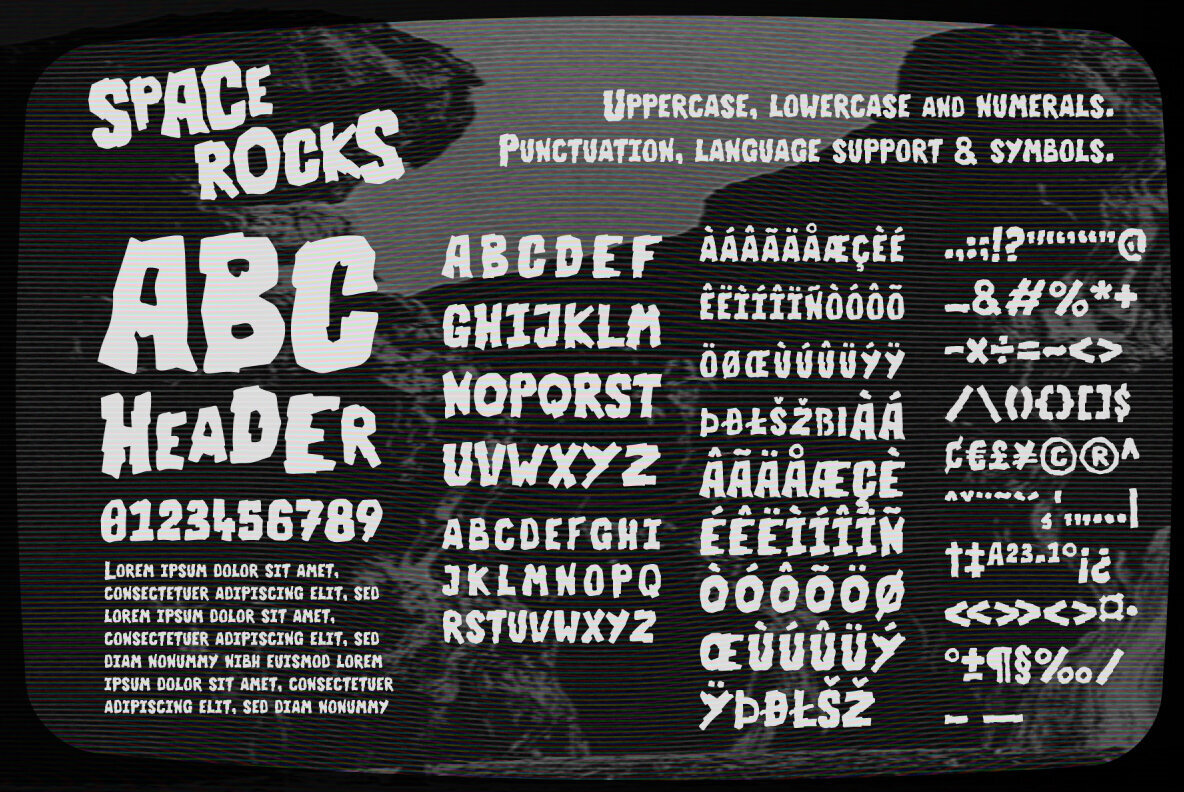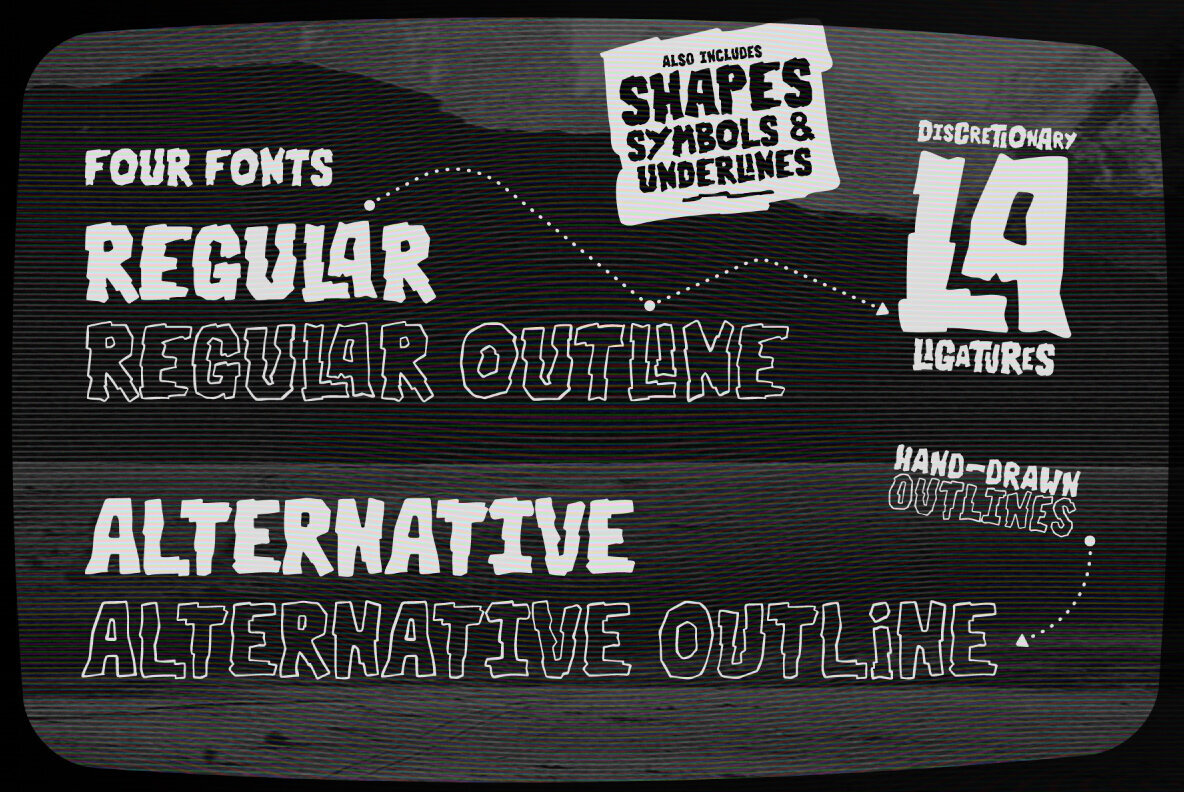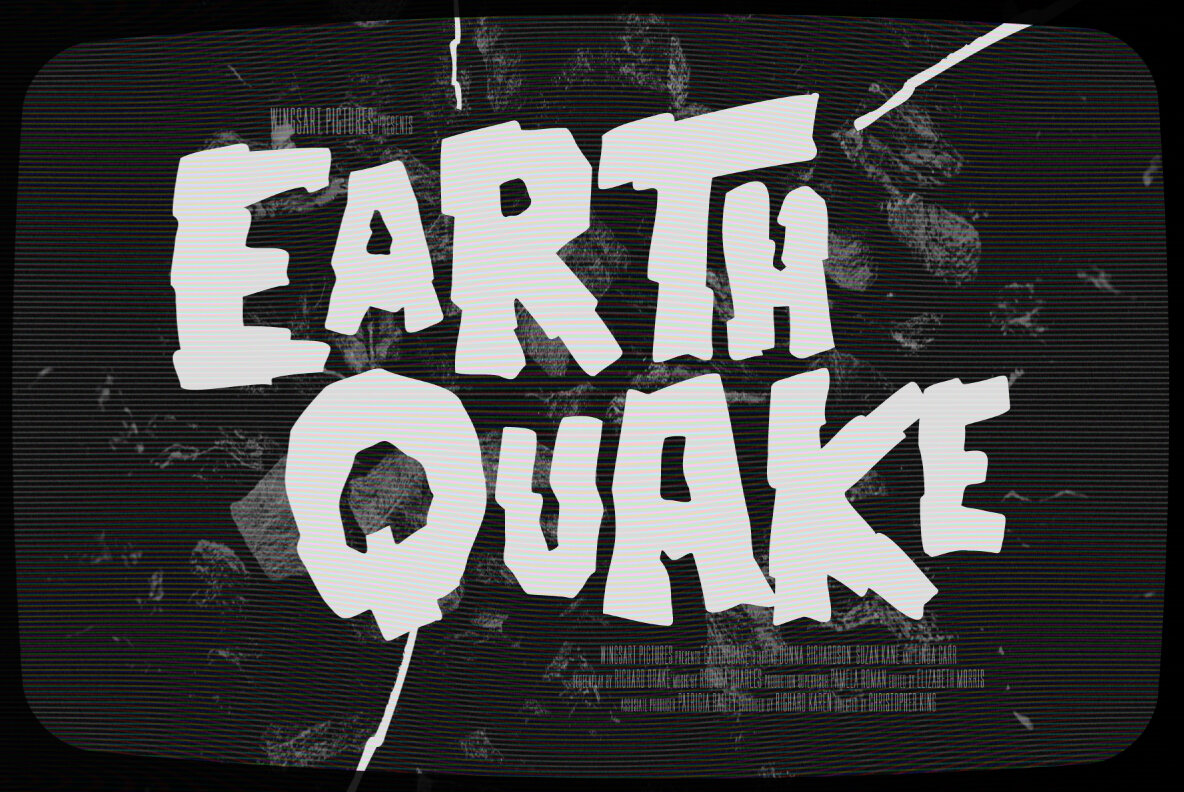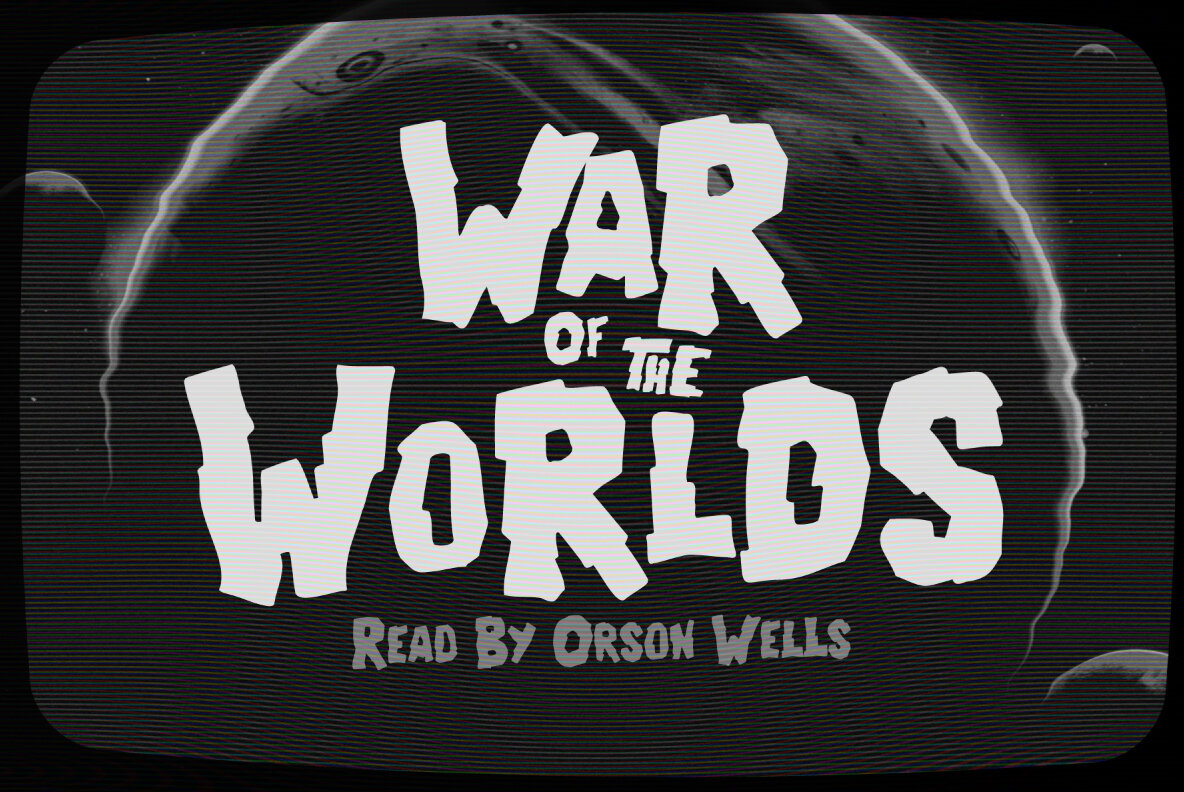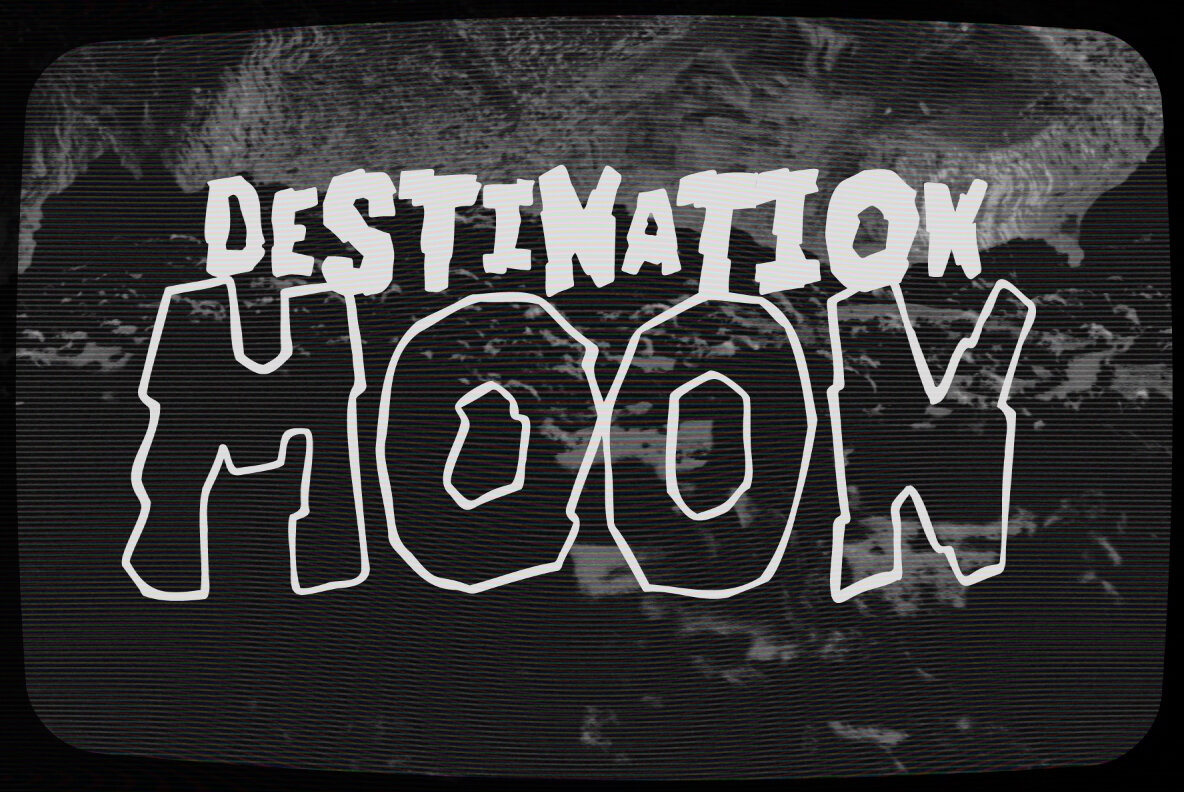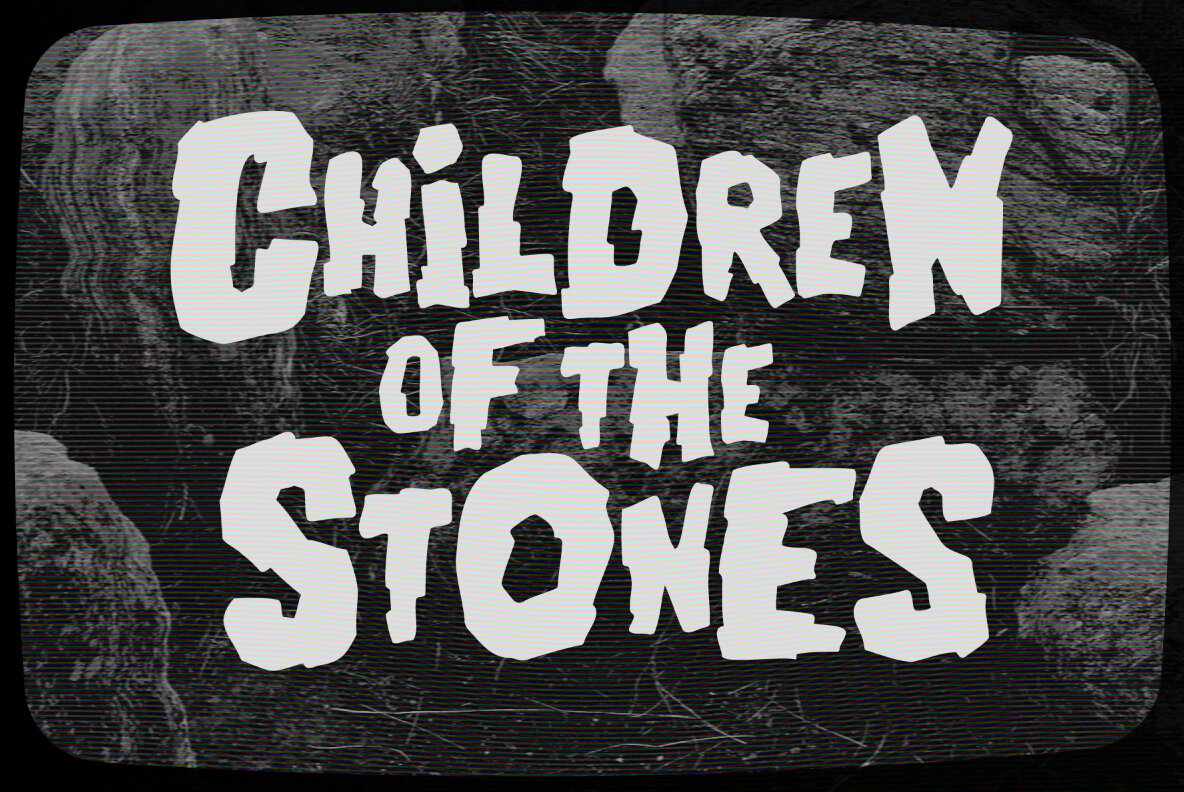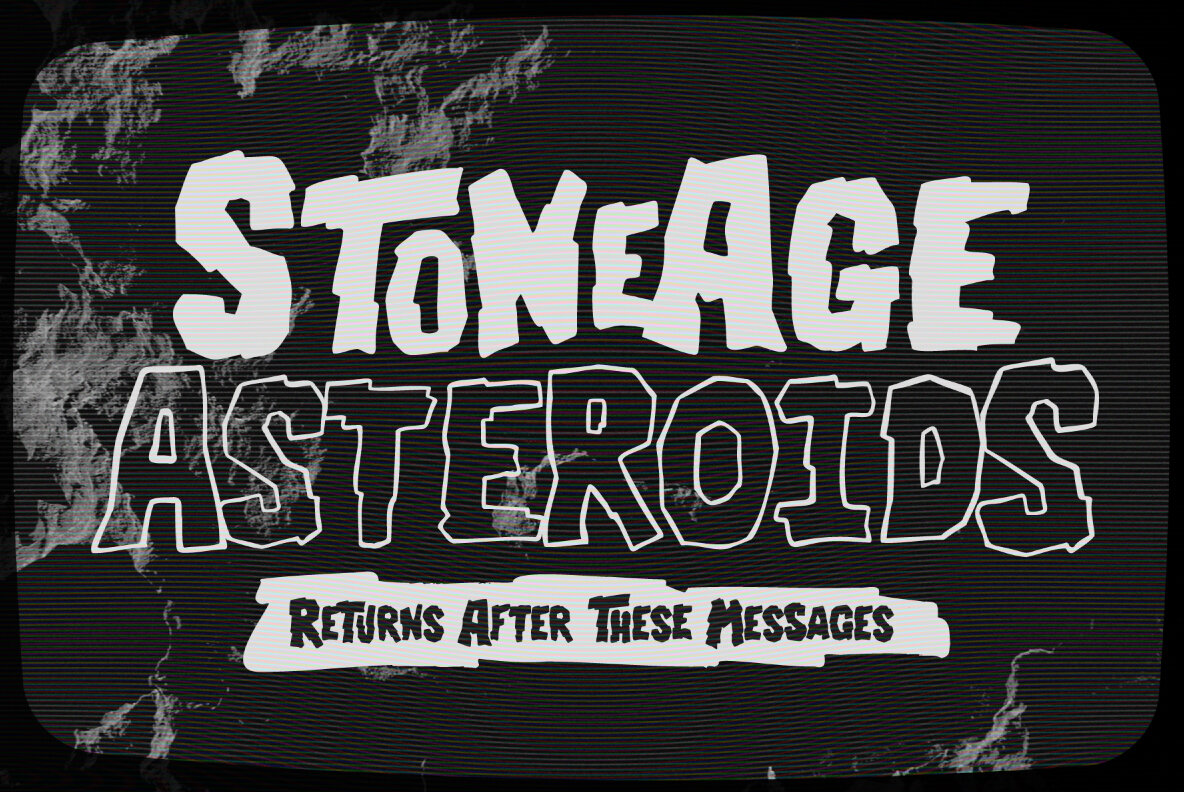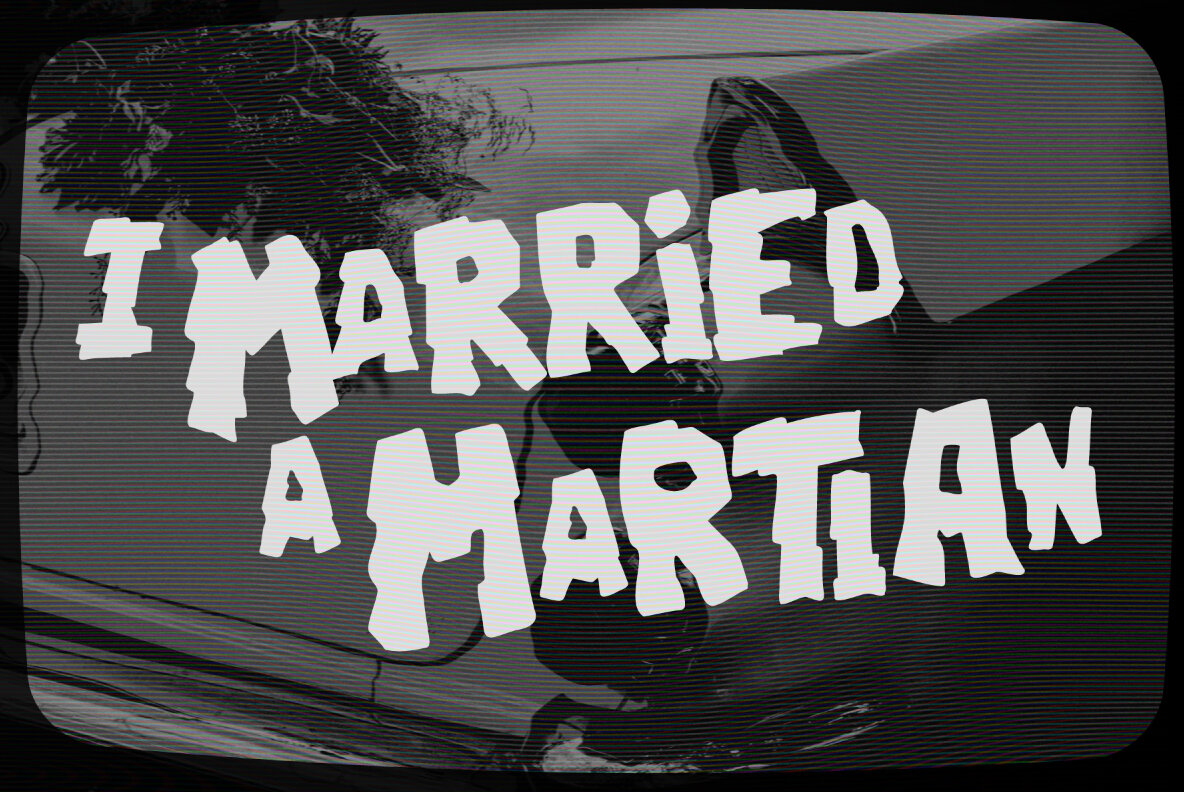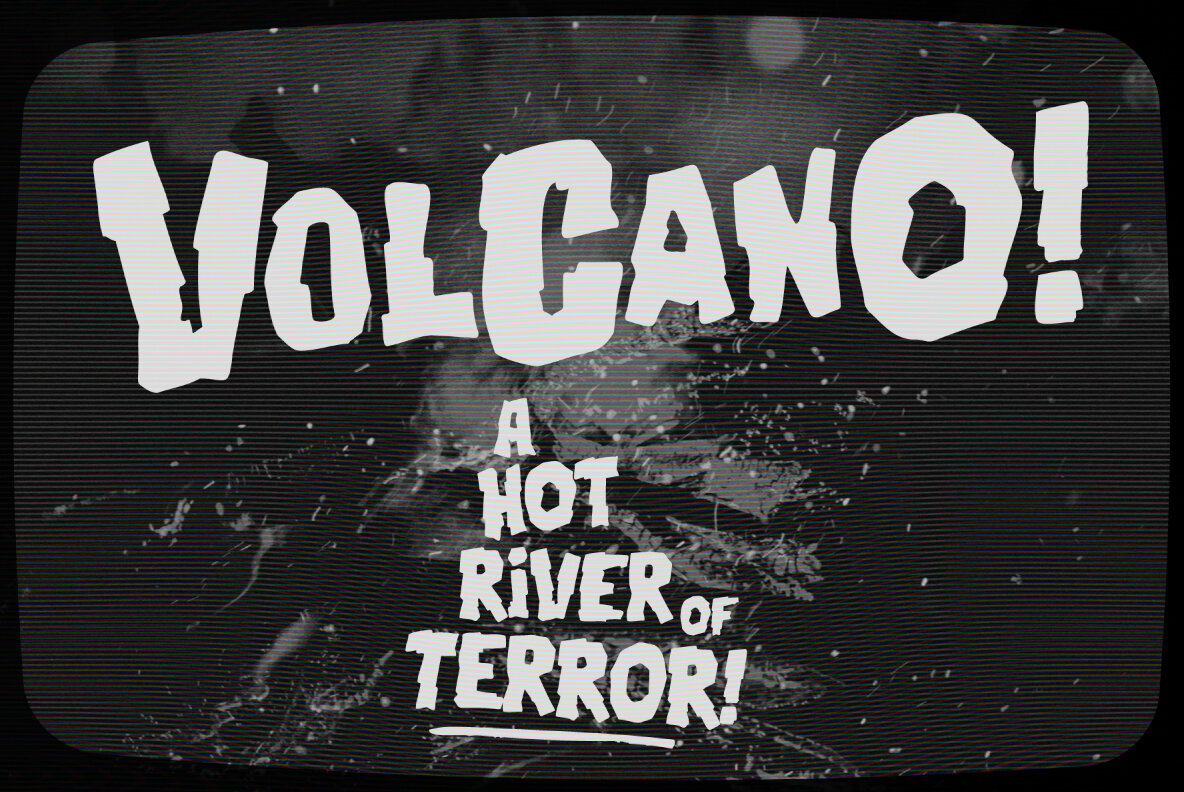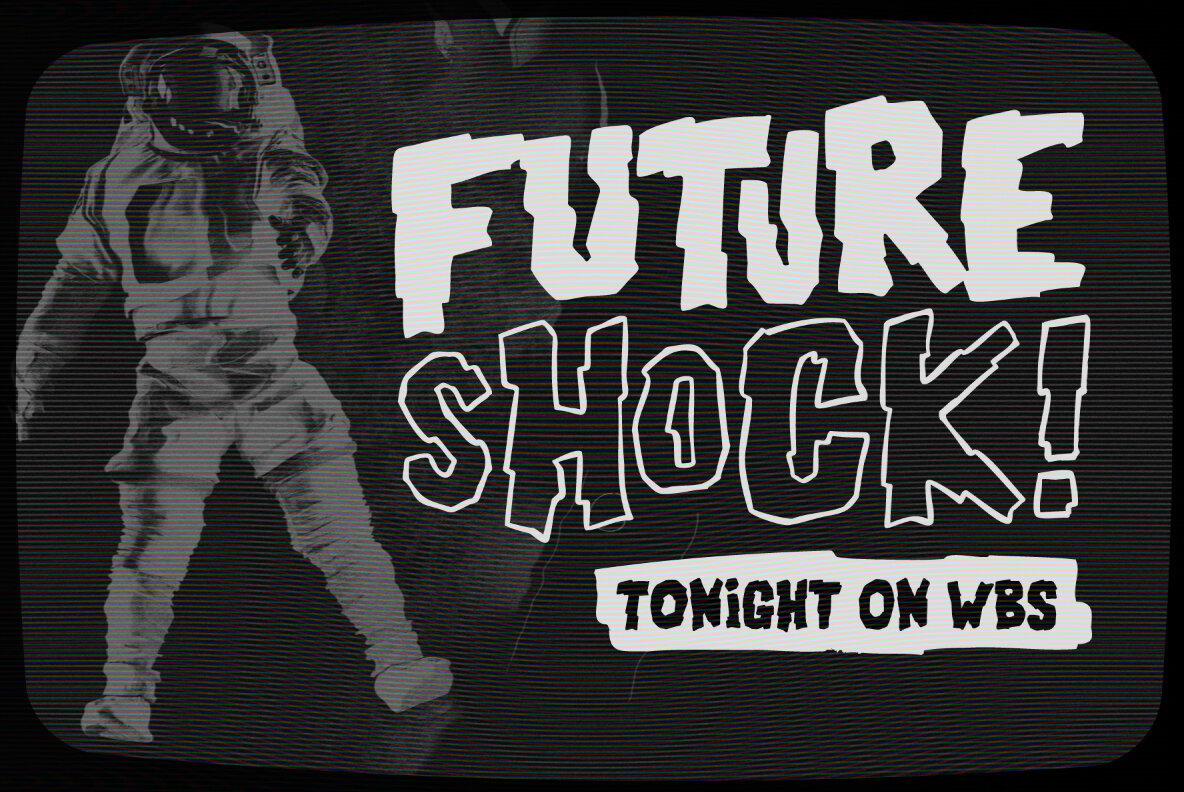
Space Rocks Font
Space Rocks! A Retro Sci-Fi Font Inspired by 1950s Television Serials
“Oh boy, oh boy! The next episode of Space Rocks is on tonight! What’s it about? Well, it’s all to do with this family of astronauts who crash land on Mars and how they survive all sorts of alien creatures and killer storms! The science is really real too! Who needs school!!!”
And so goes the story of one young fan whose imagination is captured by the latest offering in a golden-age of TV science-fiction. A brand of 1950s programming that offered a light-hearted and optimistic view of the future full of exploration, discovery and hazardous adventure! Sometimes even a cautionary tale to live on in your nightmares! With Space Rocks I want to capture this vibe with an all-caps design inspired the opening titles of these shows, fully hand-drawn with a range of discretionary ligatures that add a comic (not atomic!) touch.
The package includes Regular and Outlined (all hand-drawn) versions with a complete set of alternatives to help maintain the analogue look. This font also includes unique uppercase and lowercase characters, along with numerals, punctuation, language support, underlines and symbols. It’s perfect for movie and television titles, album covers, posters or any design that needs a dramatic, spacey and fun look. Check out the visuals to see it in action.